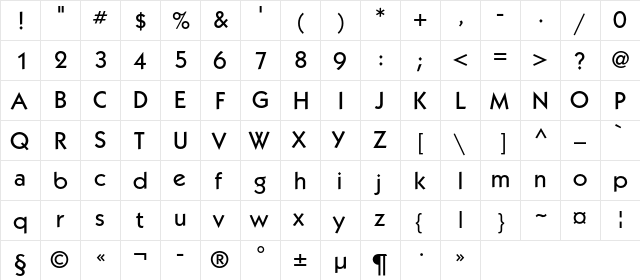
KabelC Medium Regular Font Preview
KabelC Medium Regular
Design Context for KabelC Medium Typeface
KabelC Medium takes a measured approach to typography — its balanced proportions and neutral character make it a reliable workhorse for both digital and print work.
Pro Tip: Use KabelC Medium in both headline and body roles to test its range before committing to a single application.